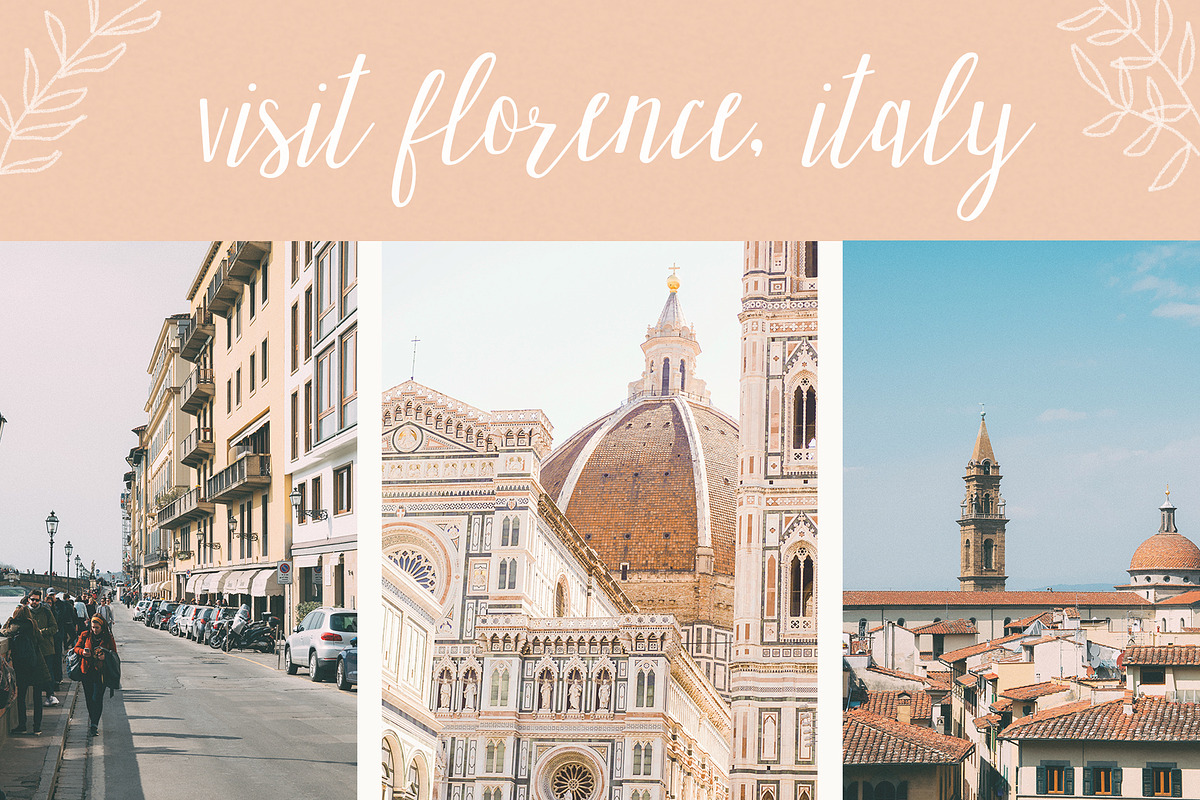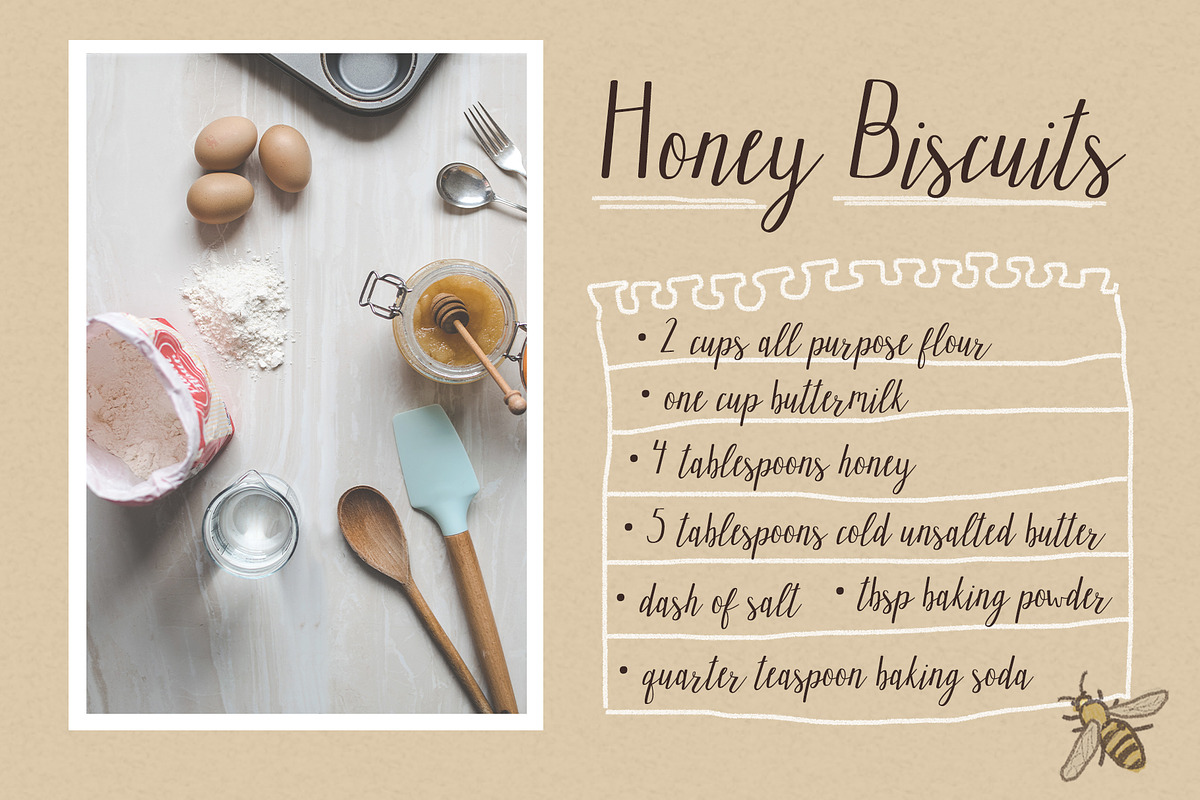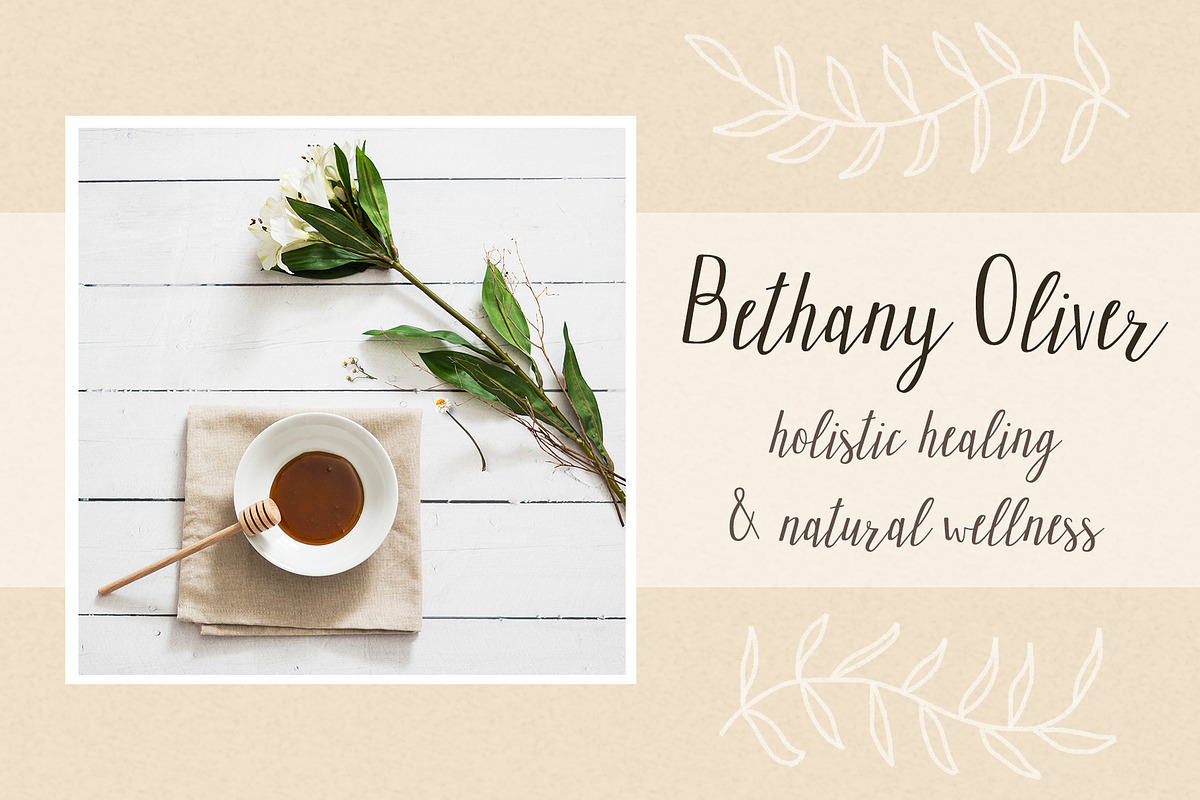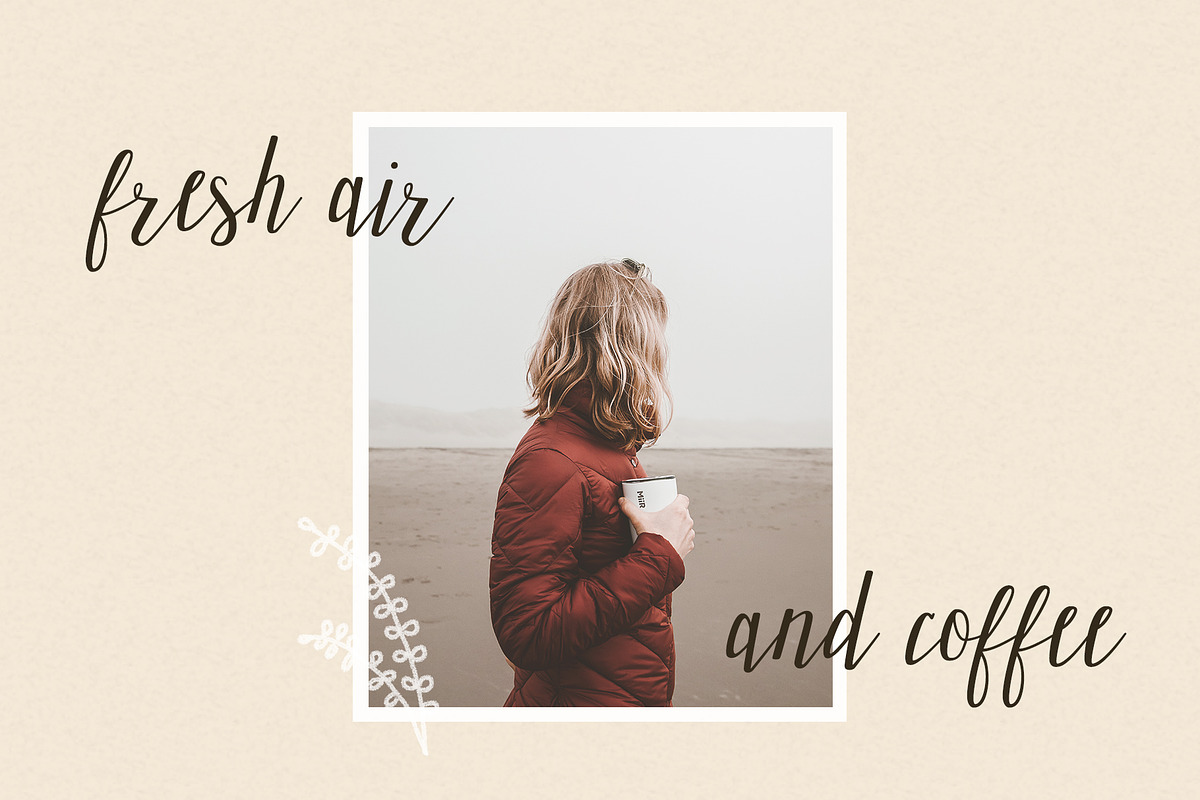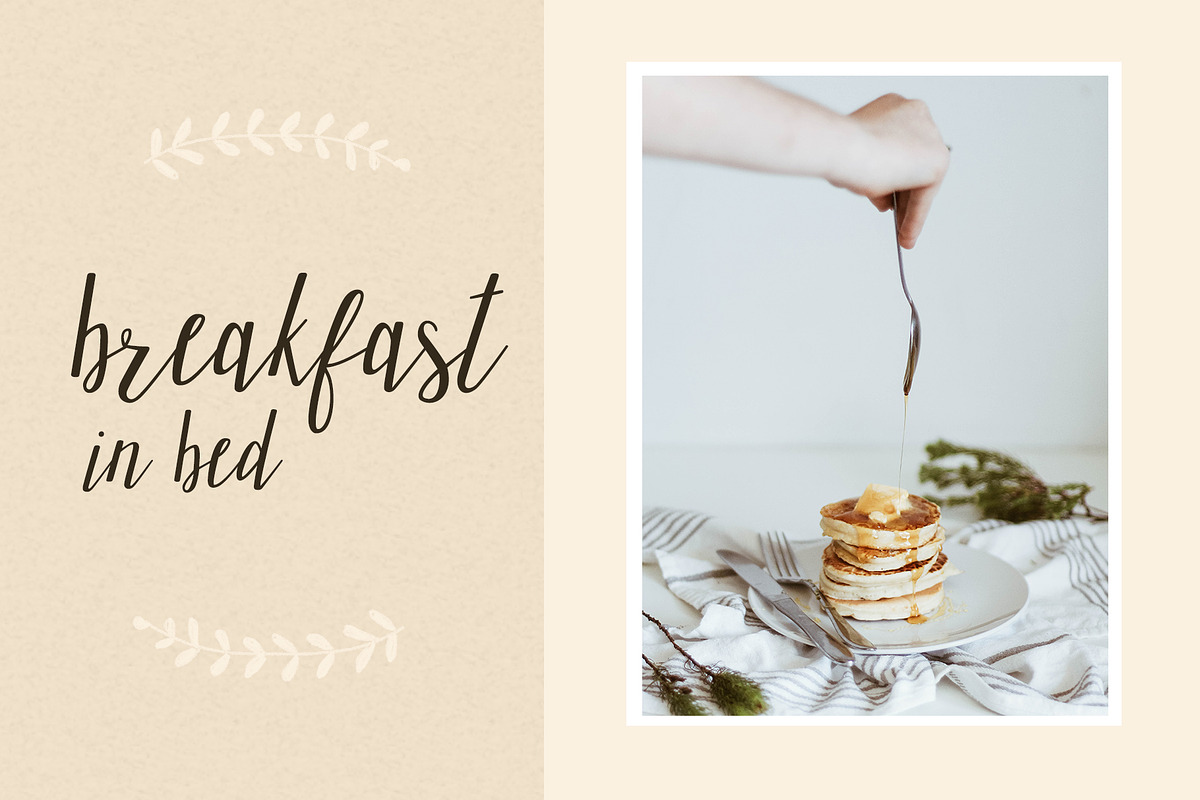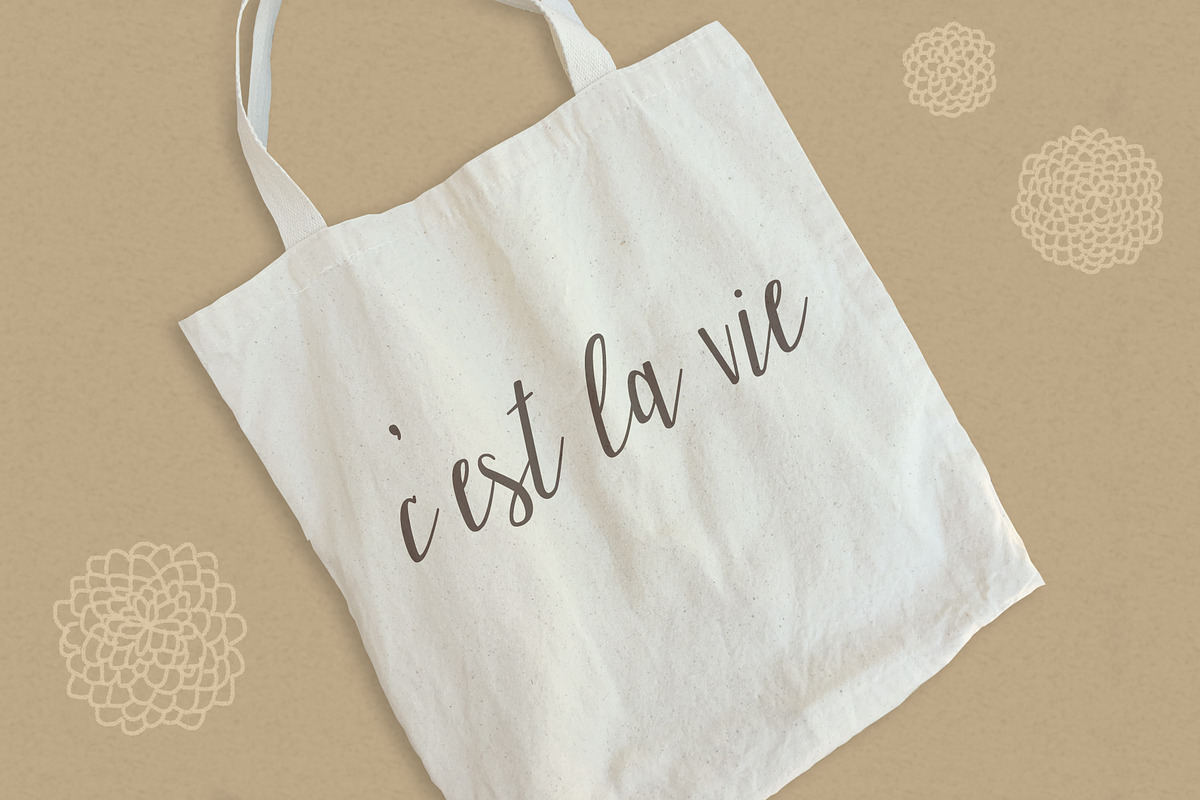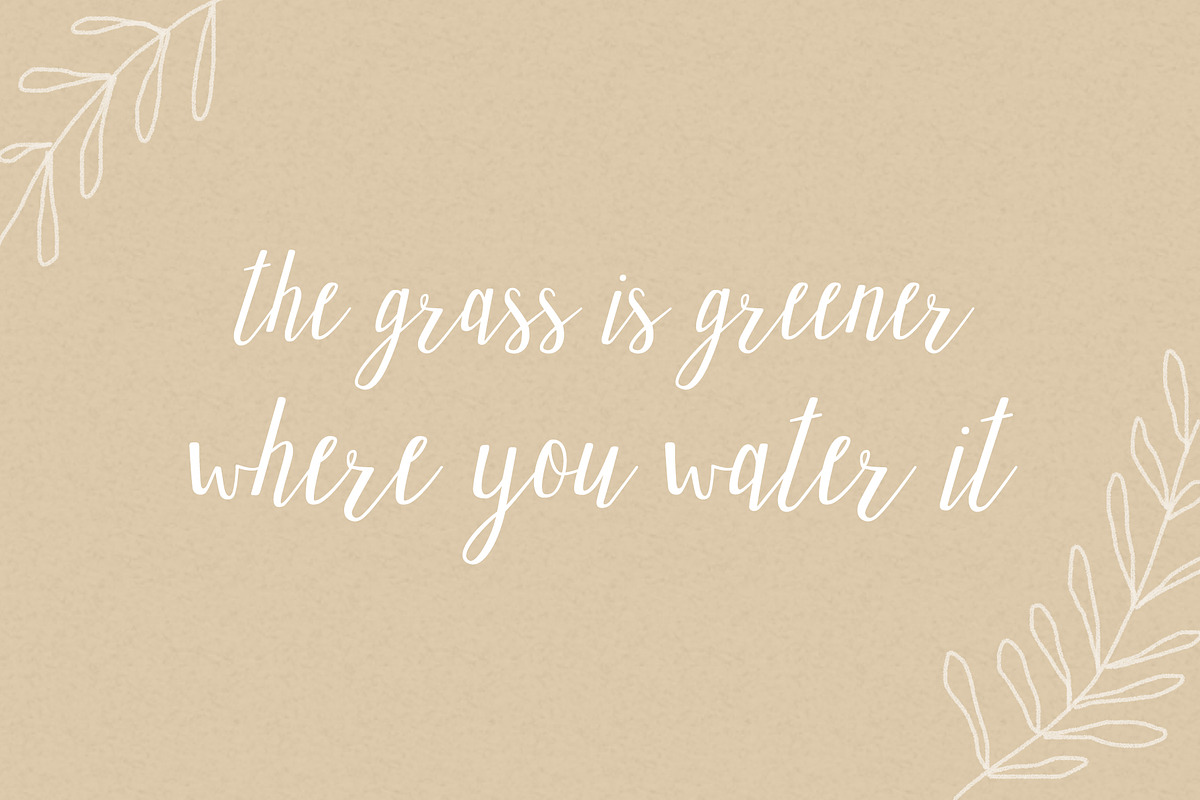
Honey Ginger Handwritten Font
Sweet & funky. Candied & spicy. Honey Ginger script font will bring a lively twist to your blog posts, Instagram images, web design, invitations, stationary, packaging, and more!
Honey Ginger Handwritten Font by Kellie Jayne Studio fits naturally into Branding, posters, packaging, typography.